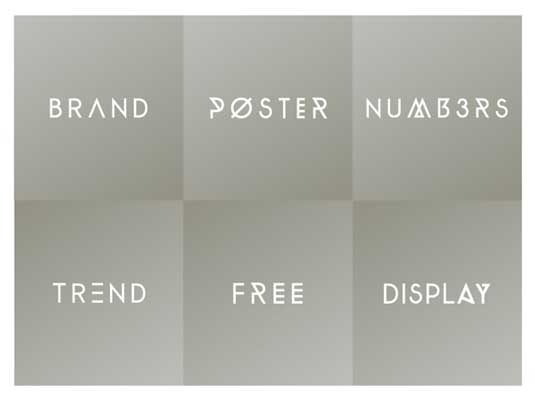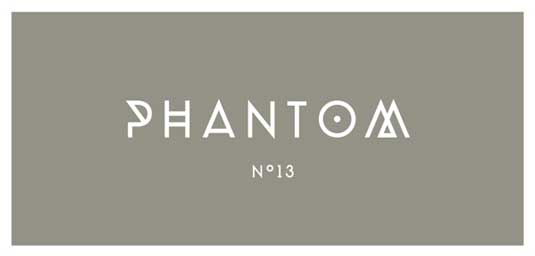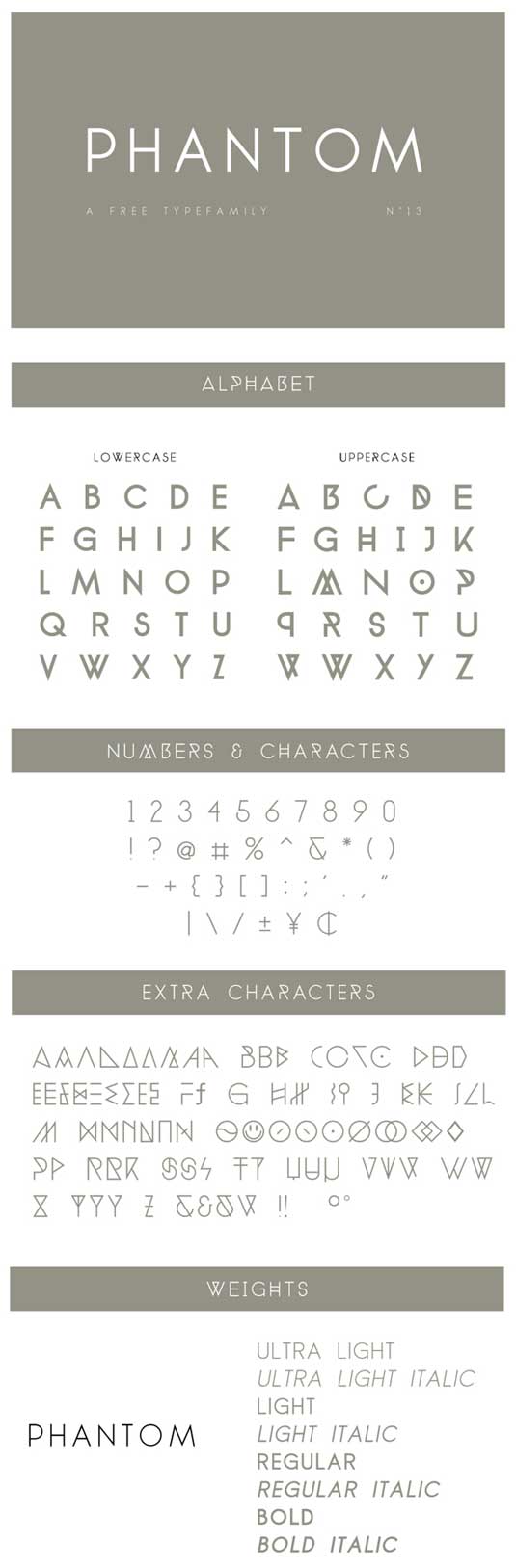
Font of the day: Phantom
Phantom by Frank Hemmekam
We featured Frank Hemmekam's free font Baron a couple of weeks ago, and its popularity has given him the motivation to release another download to the community.
Phantom is an uppercase display typeface with nine free weights. Described by Hemmekam as a 'trendy typefamily', it's totally FREE for personal use and commercial use. So, what are you waiting for? Download Phantom here.